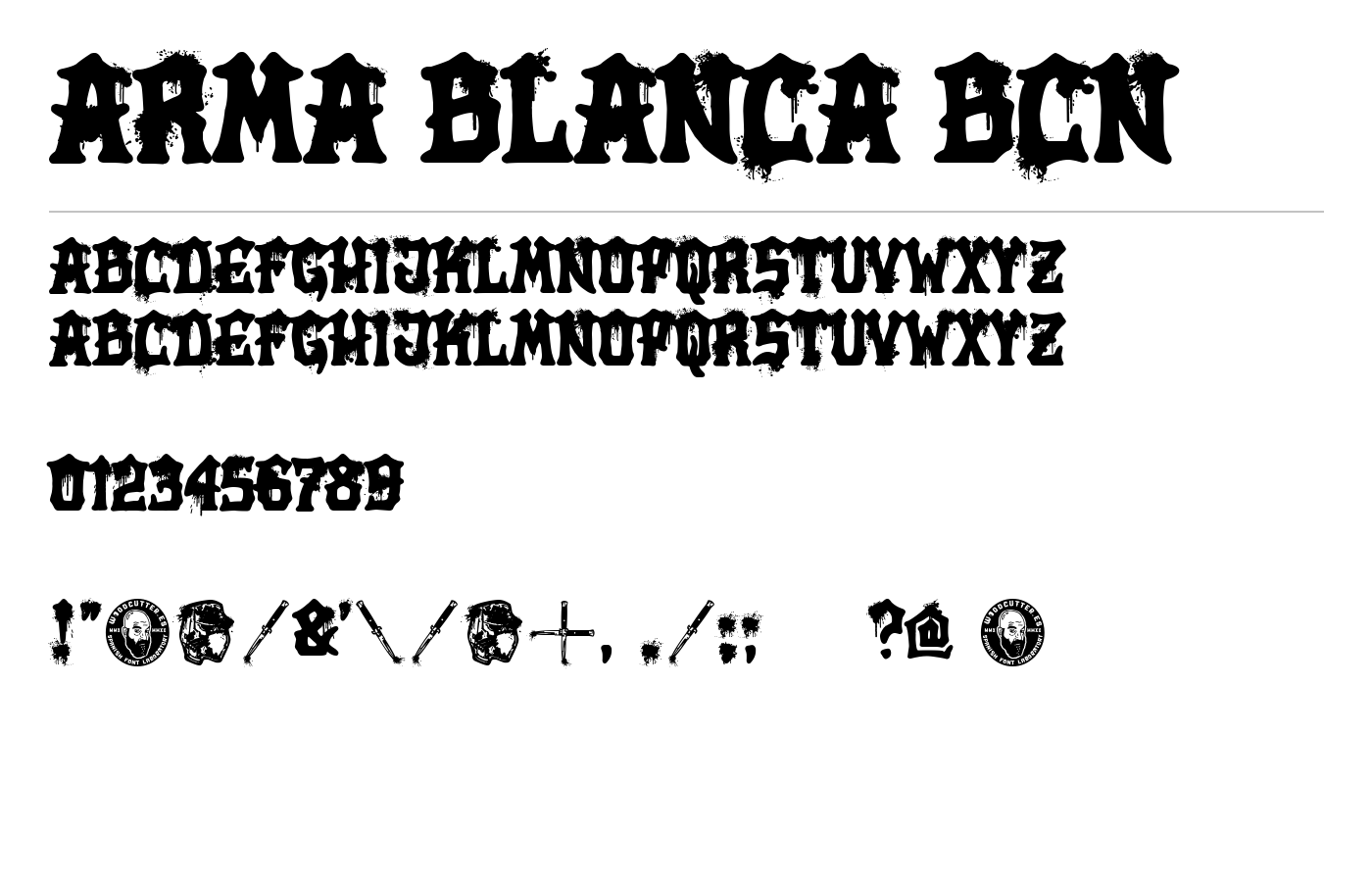
Arma Blanca BCN is a bold, decorative display font with a distressed, grungy texture that gives it a strong, rebellious character. Its heavy weight, condensed letterforms, and uppercase-only style create a striking, impactful look perfect for edgy branding, posters, and logos that want to convey attitude and toughness. This font works well where a vintage, rugged, or urban vibe is desired, making it ideal for creative projects in music, streetwear, and alternative culture.
Arma Blanca BCN Font
About Arma Blanca BCN Font